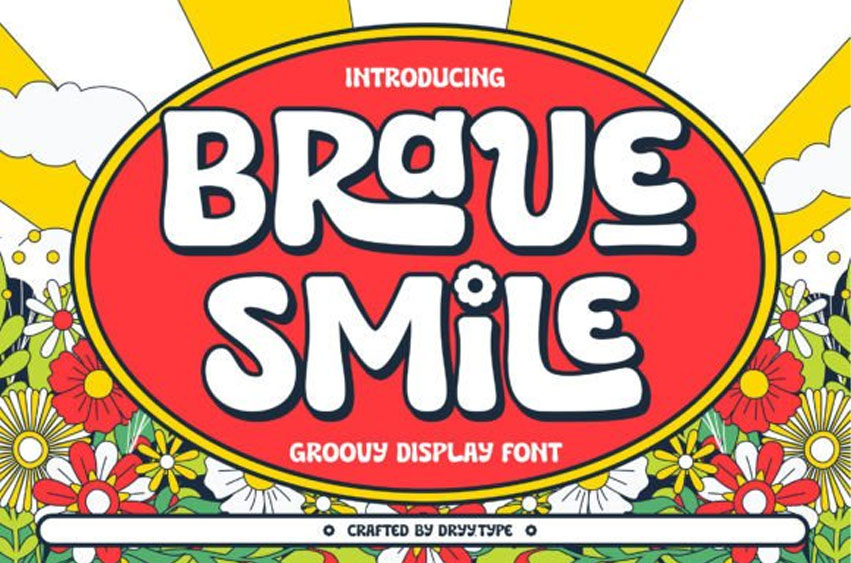
Brave Smile Font is a groovy and retro display font that will transport you back to the 70s. With its funky curves and bold lines, this font is perfect for conveying a retro vibe that is both nostalgic and fun. Whether it’s for posters, album covers, or branding, “Funkadelic” will bring a touch of vintage cool to your project.
Keep in mind that the font is PUA encoded, meaning that you can access all delightful glyphs and swashes effortlessly.